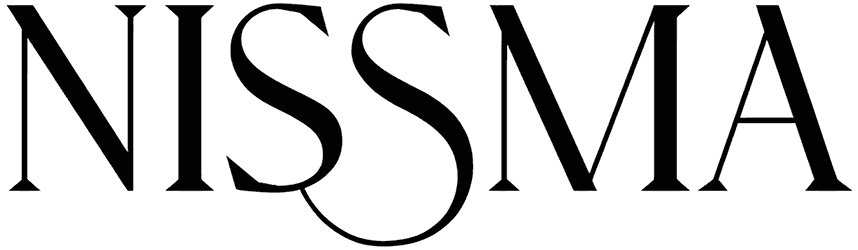
Nissma Font
Sometimes a professional graphic artist requires a formal serif font, such as Nissma, to take their graphic content, like branding, merchandise, posters, packaging, or flyers, out of the box. Its clean and sturdy characters lead to a feeling of trustworthiness, respect, and confidence. The number of various fonts in our archive exceeds all of your imagination, so don’t hesitate to visit the RB archive.